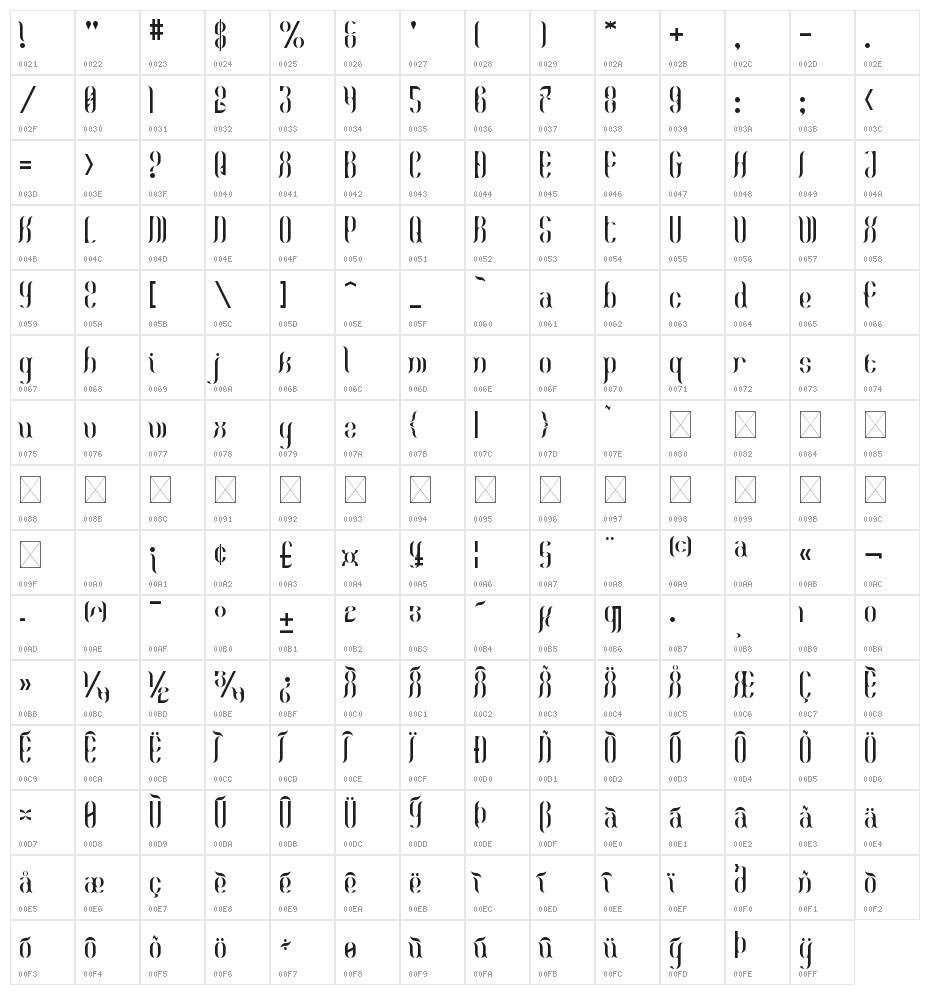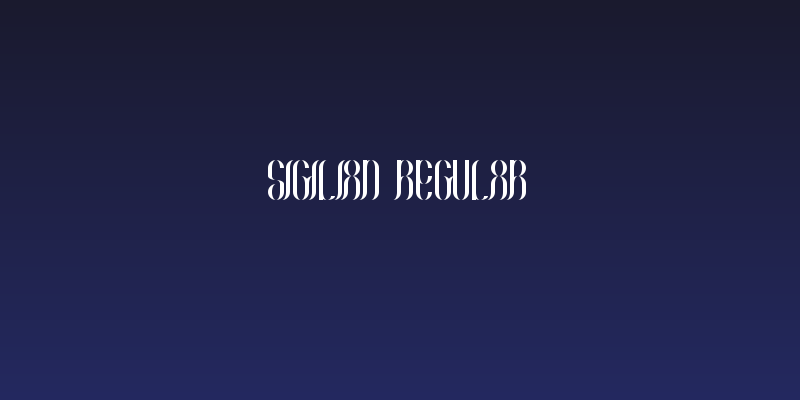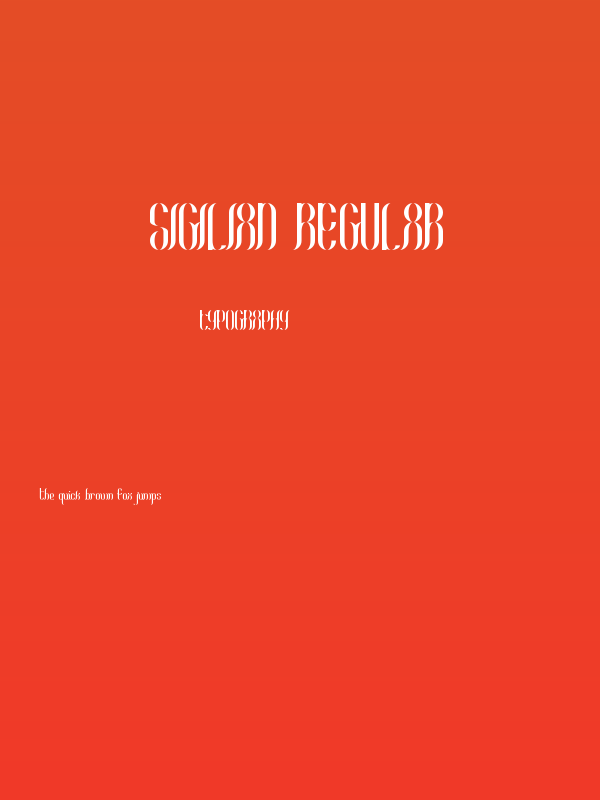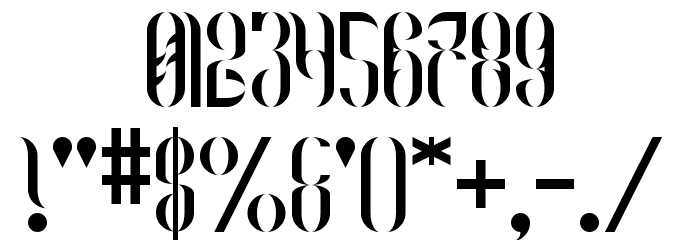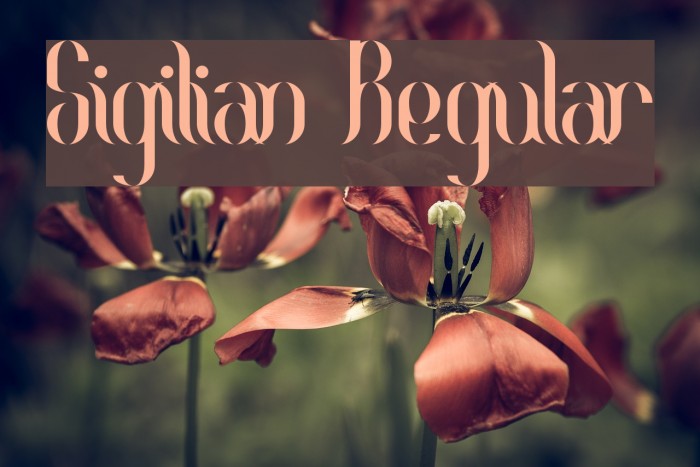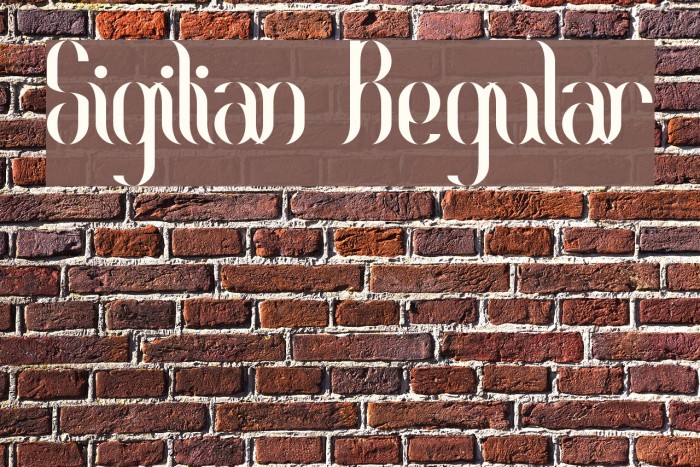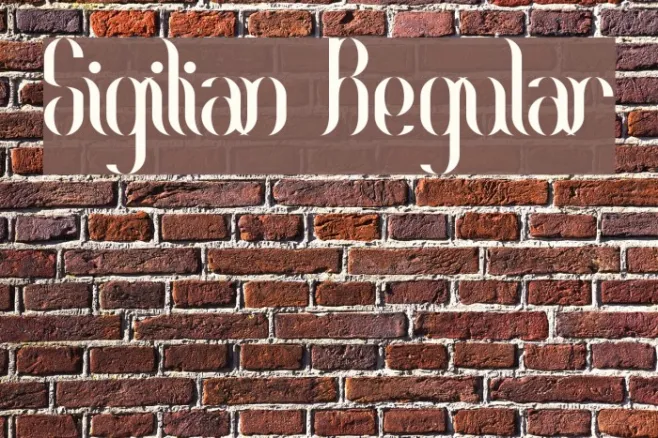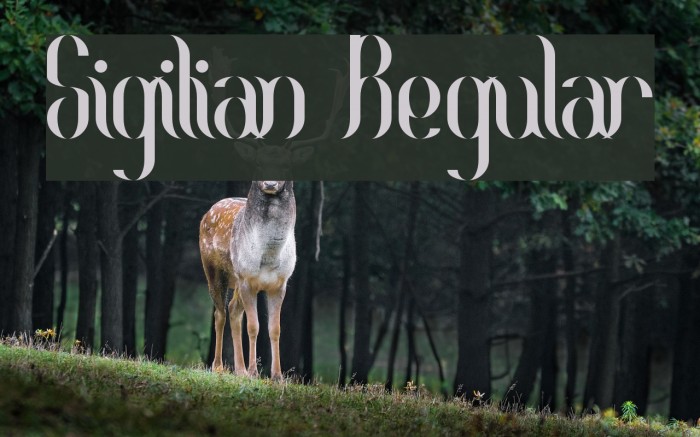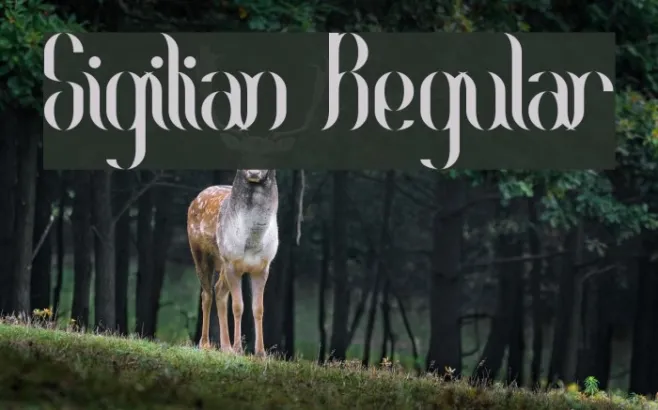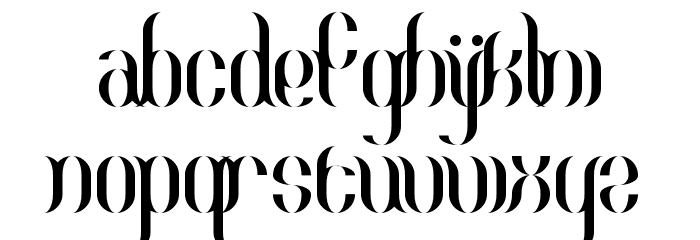
Sigilian Regular Font
Sigilian Regular Description
This font features a striking and bold design with high contrast between thick and thin strokes, giving it a dramatic and eye-catching appearance. The characters are elongated with sharp, angular edges, creating a sense of elegance and sophistication. The uppercase and lowercase letters maintain a consistent style, with unique flourishes that add to its decorative nature. The numerals and special characters are equally stylized, ensuring a cohesive look across all text elements. This font is ideal for making a statement in any design project.
| Proposed Projects | Ideal for branding, posters, headlines, and any project requiring a dramatic and sophisticated touch. |